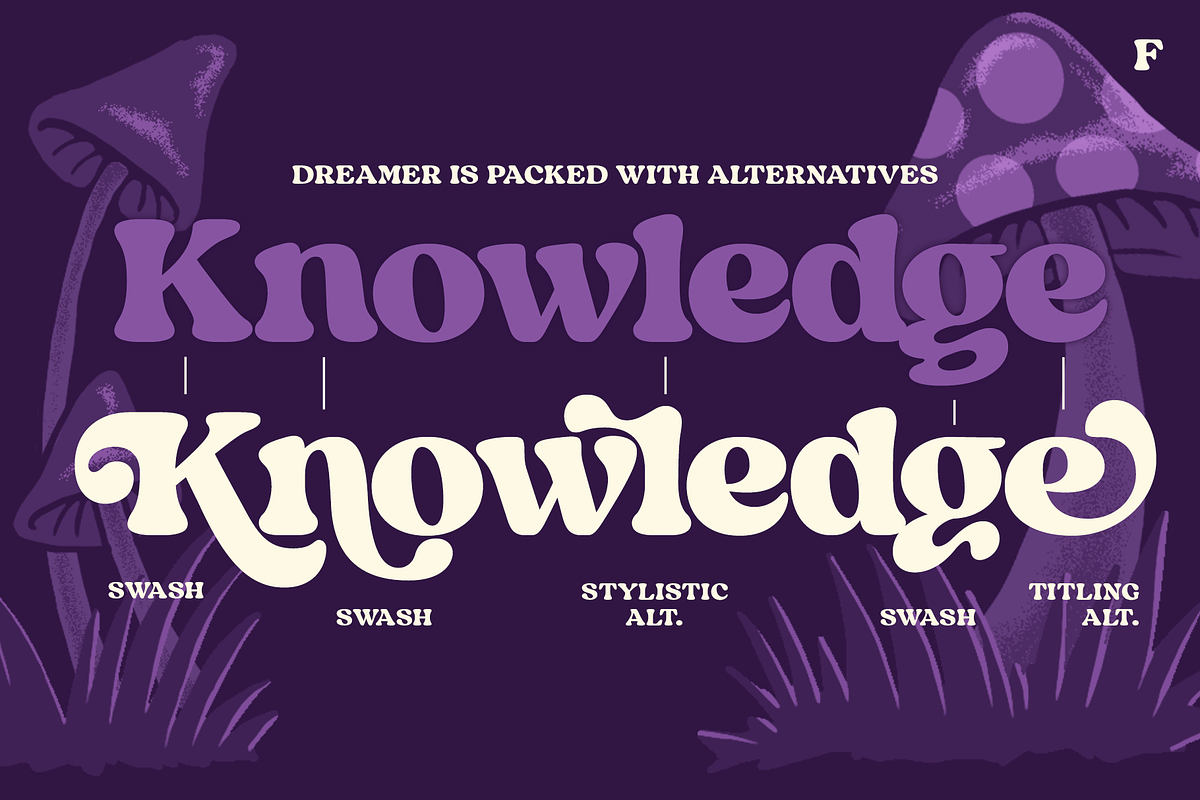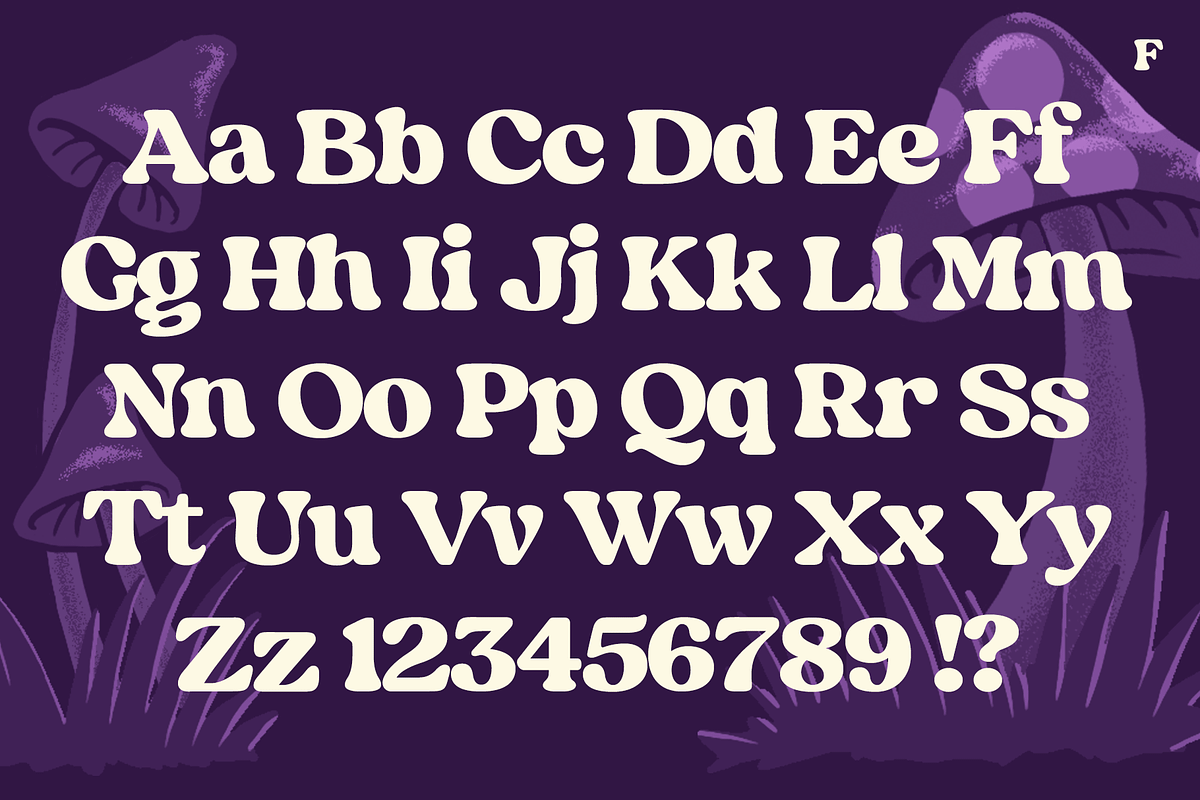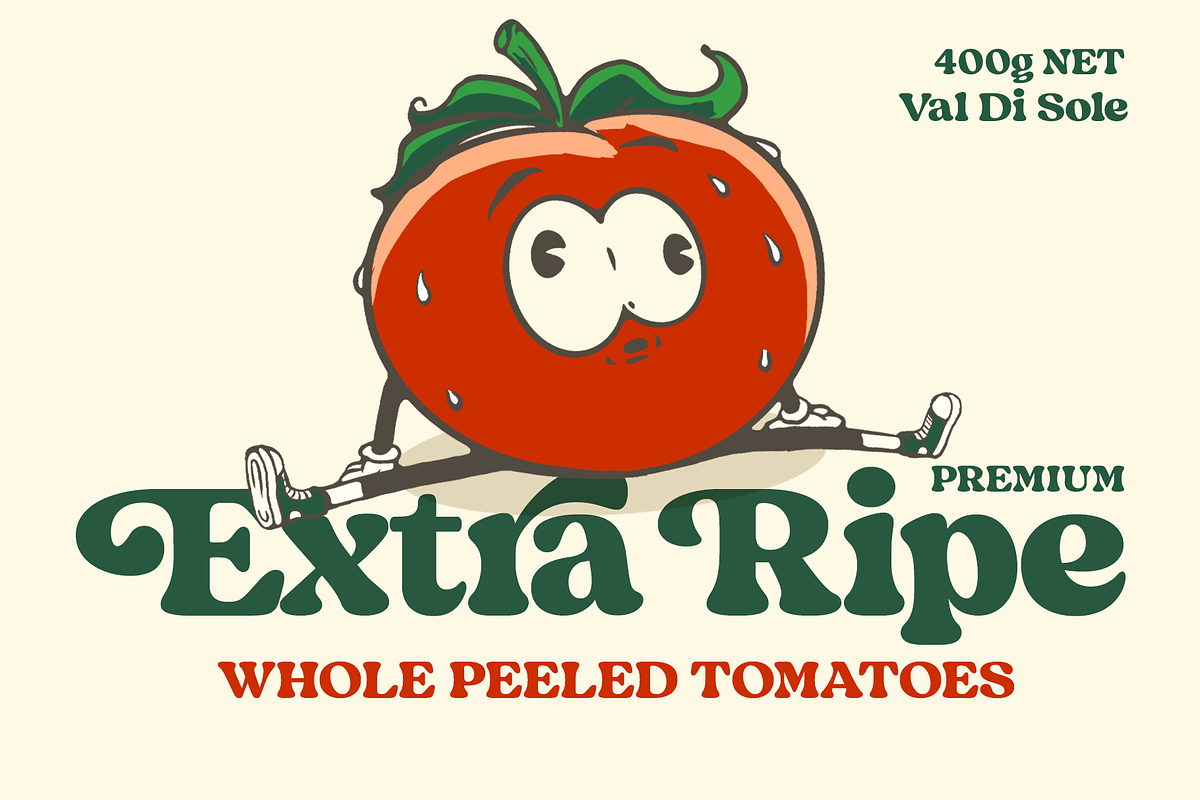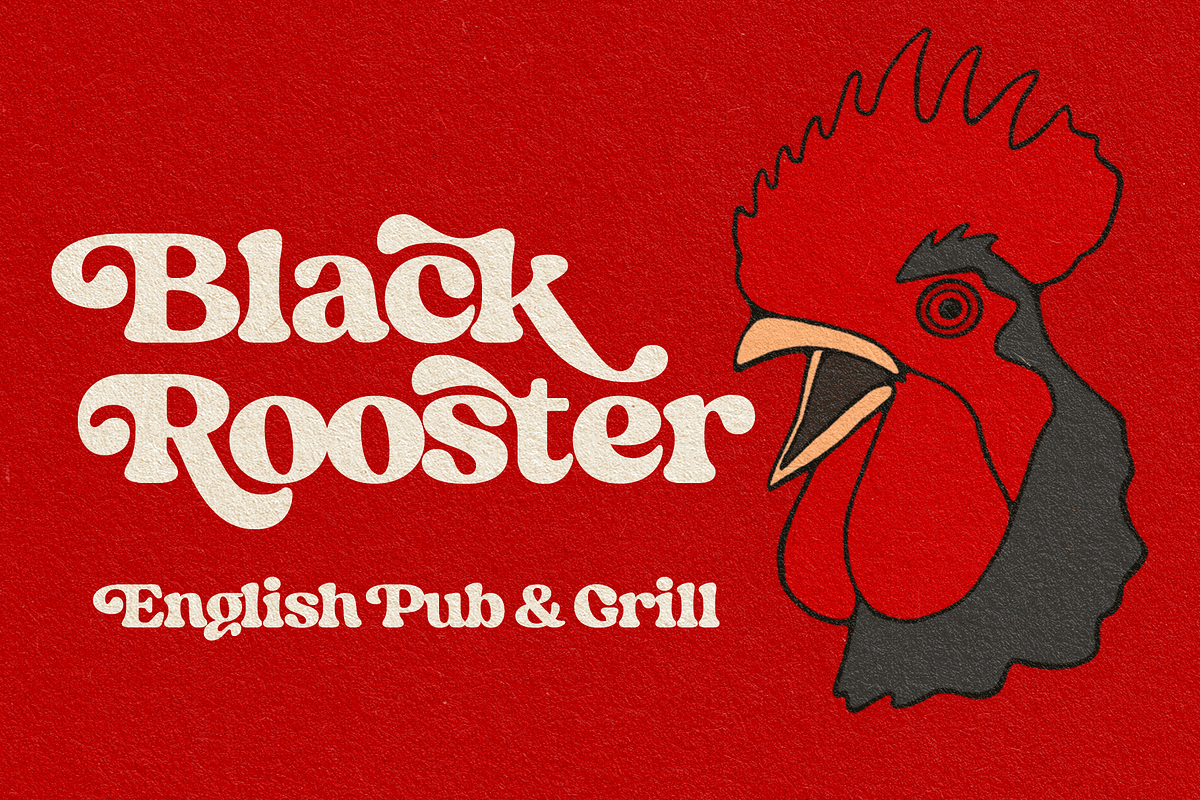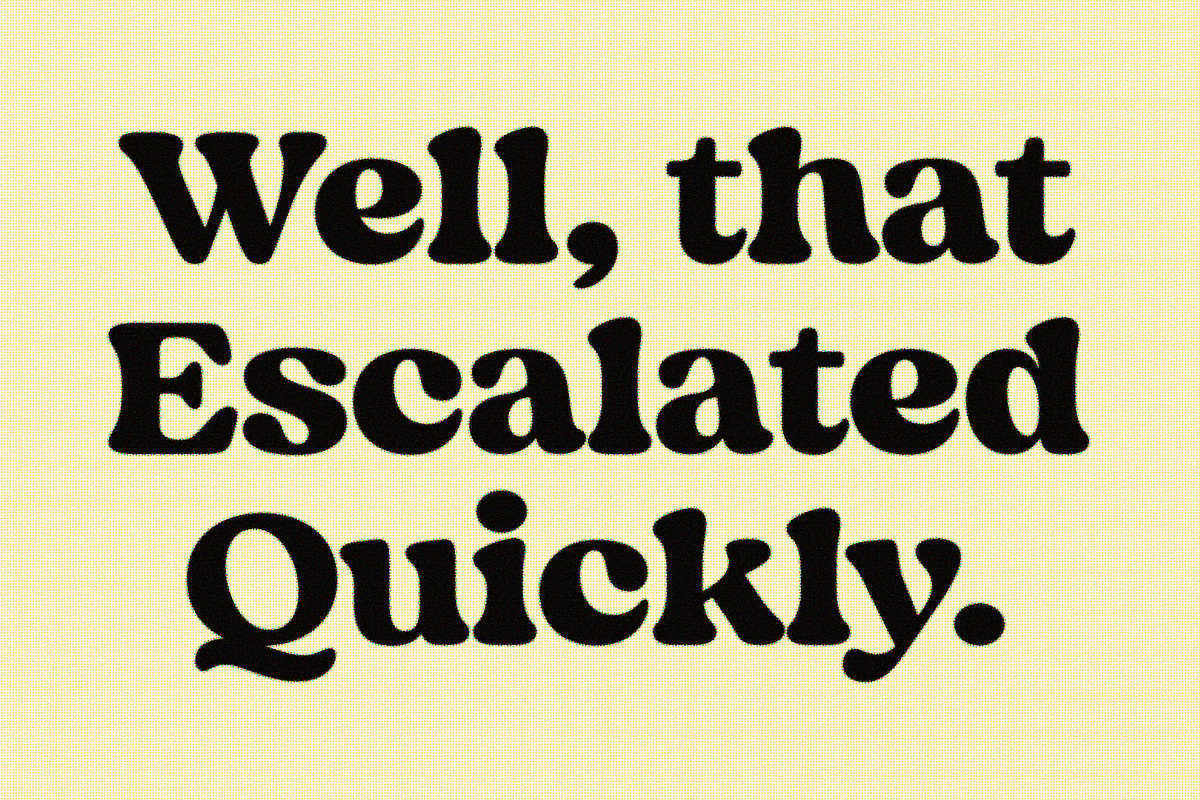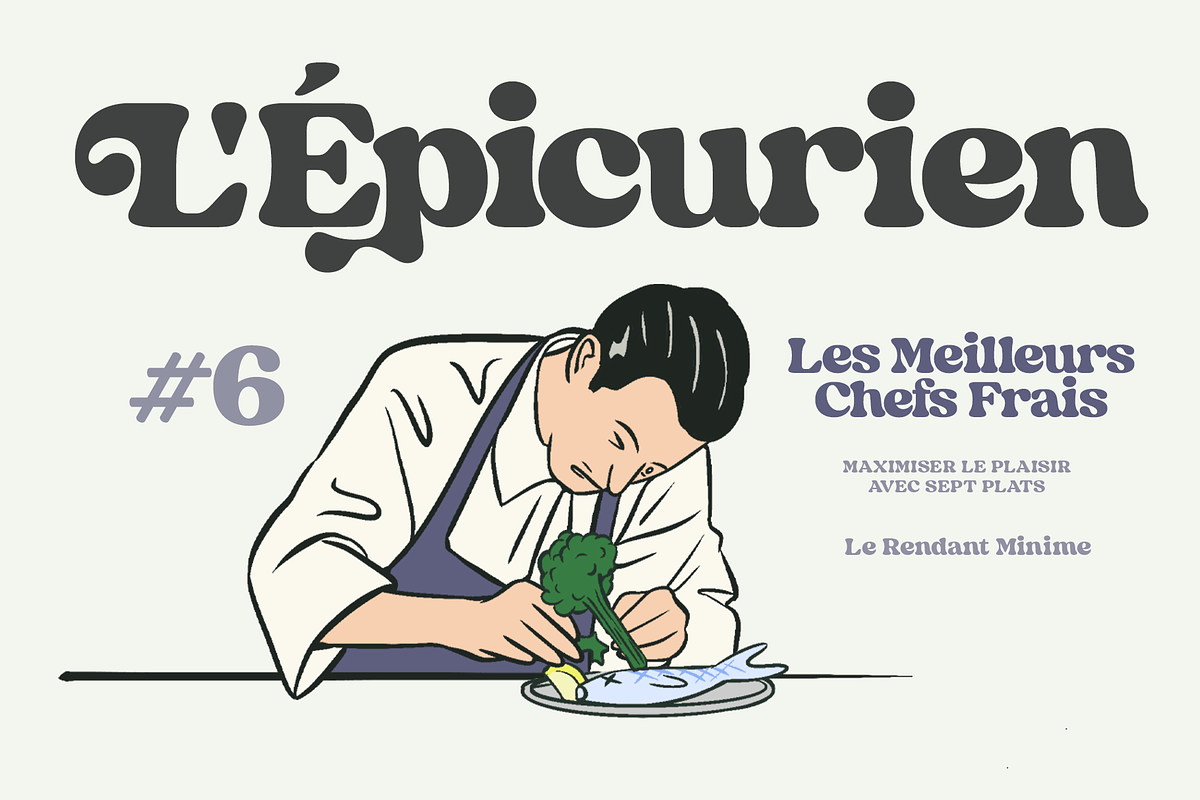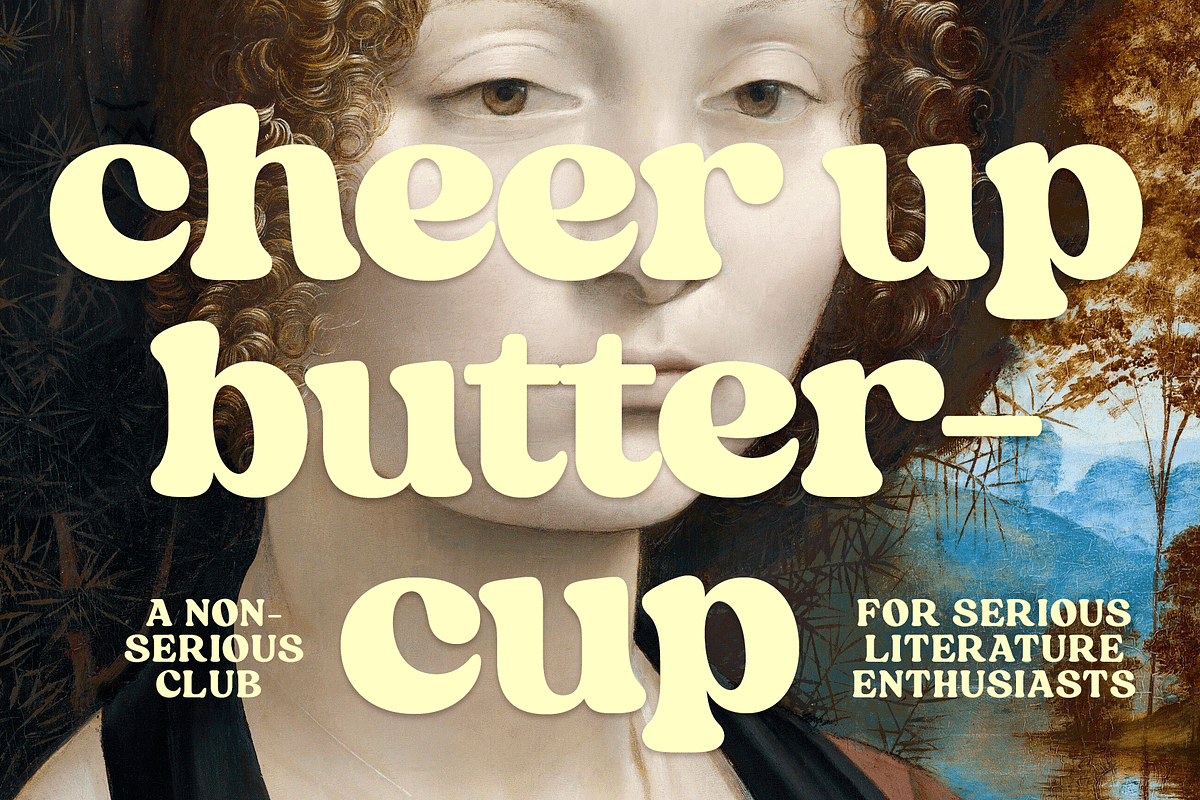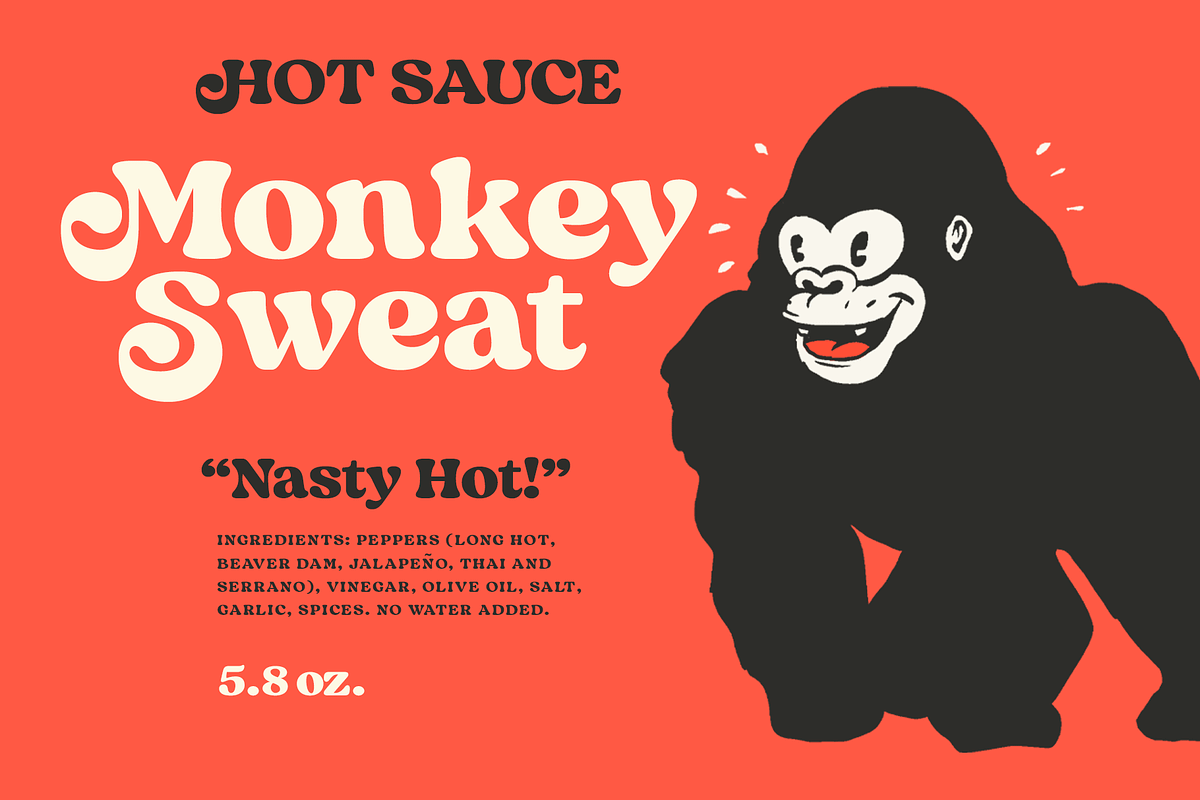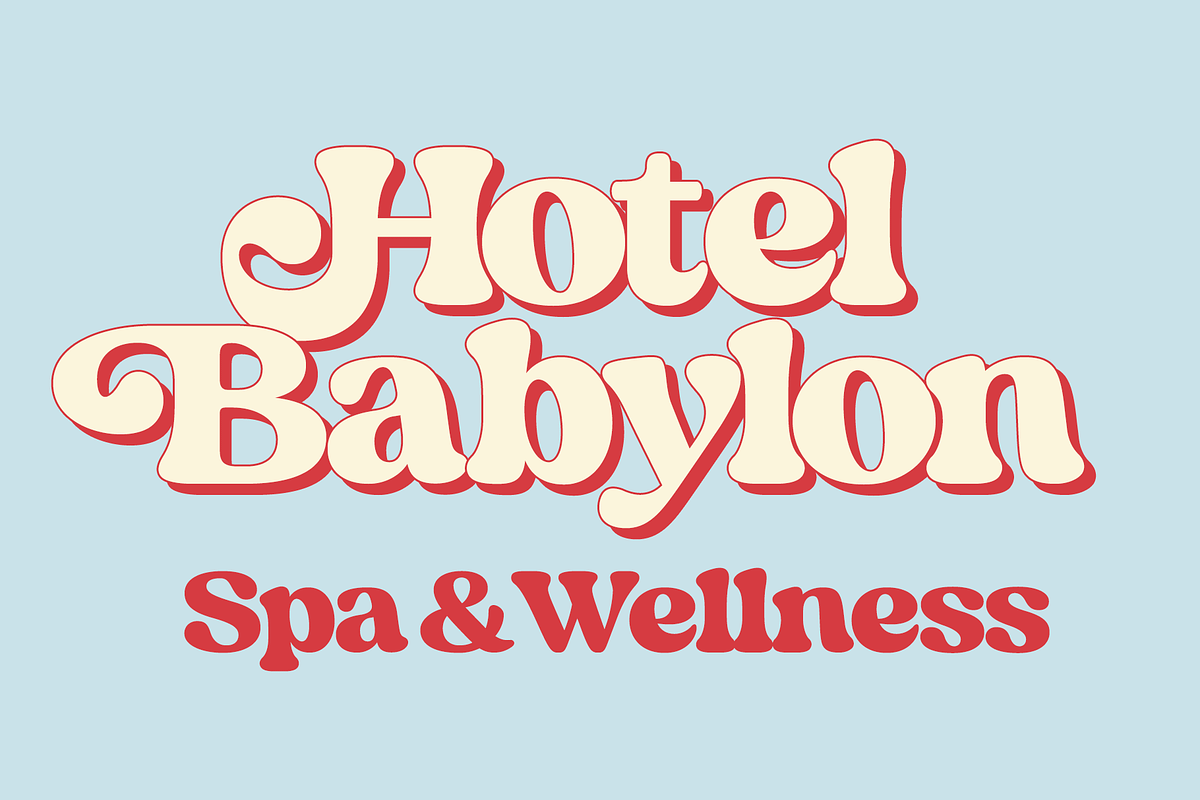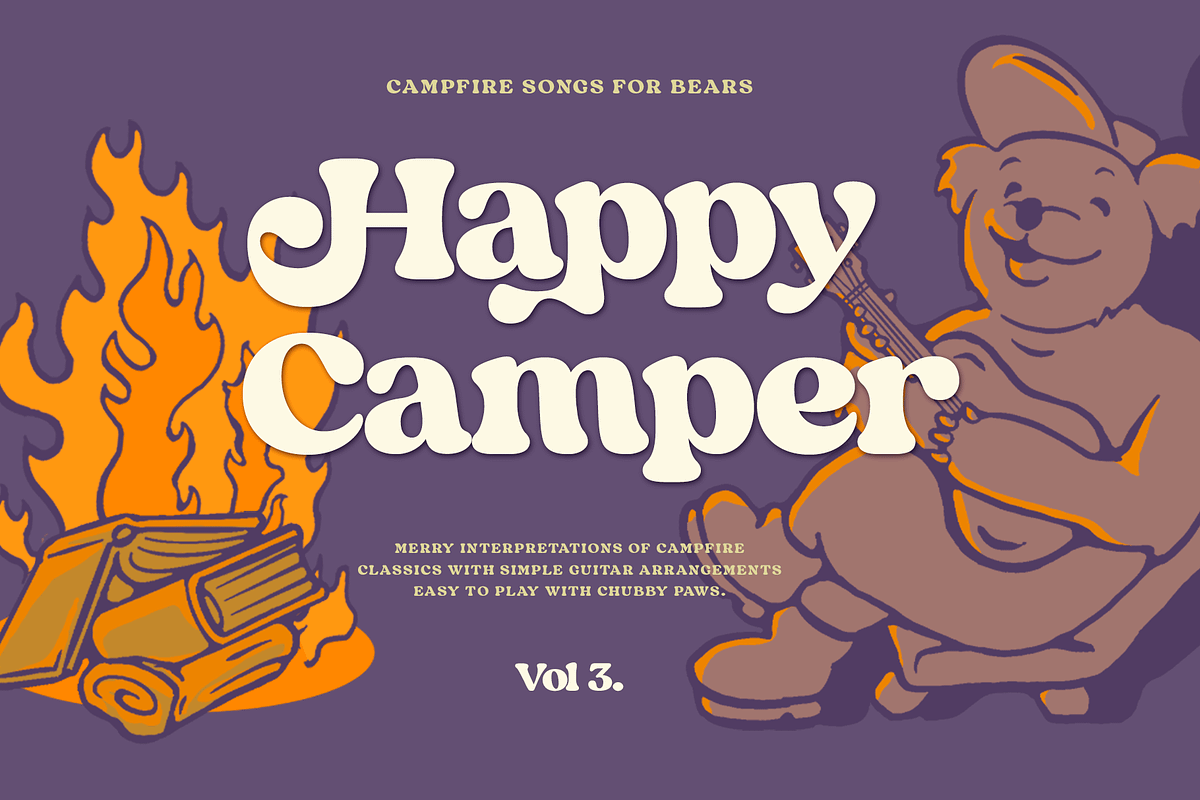
Dreamer Vintage Serif
Dreamer is a soft and dreamy serif with serious vintage appeal. As Dreamer occupies the space with its large x-height and wide characters it’s effective for any display use where you need to communicate a friendly, fun and easy to approach feeling with a touch of charming nostalgia polished in modern days aesthetics. Dreamer is equipped with a large arsenal of OpenType features - Try Swash, Stylistic or Titling Alternates for less conventional letterforms. Keep Standard Ligatures and Contextual Alternates on to prevent certain letter combinations, such as ff and fi from colliding unintentionally. In total, Dreamer has more than 100 alternative characters.